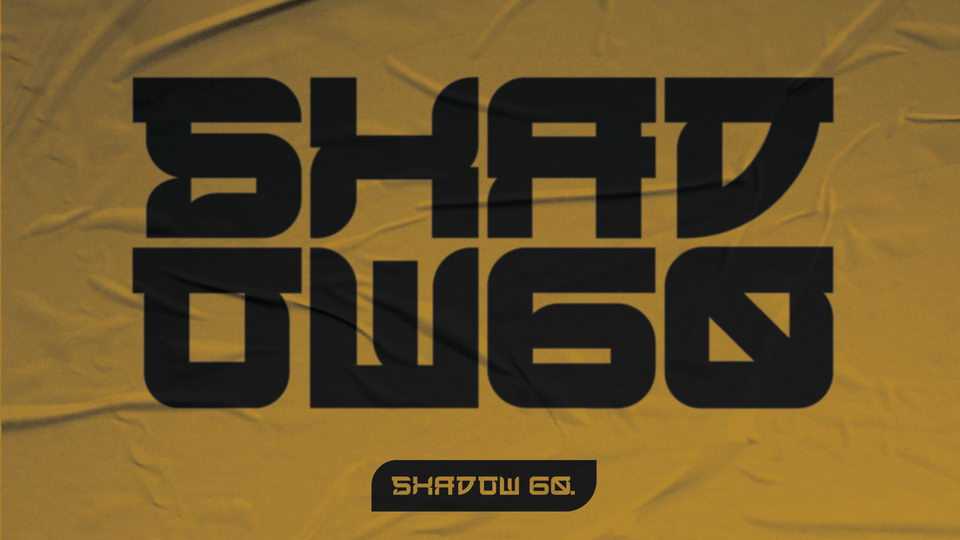
Download Shadow 60 typeface, a display font family based on democratic uprising in Japan during WWII. This type is designed with large blocky forms and sharp contrasting cuts making the font a great option for logos, banners and headers.